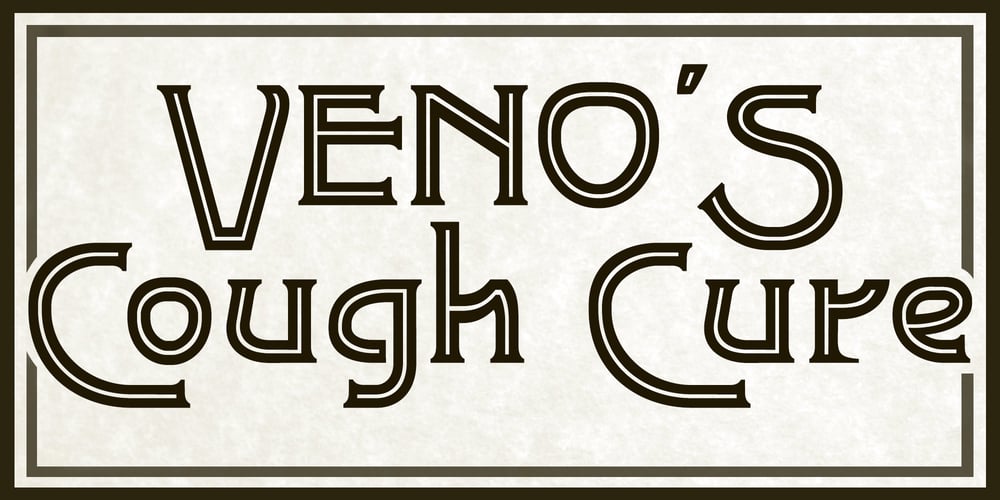
Deco Metro Font Family was designed by Paul James Lloyd and published by Greater Albion Typefounders. Deco Metro contains 2 styles and family package options. Deco Metro is a 1920s and 30s inspired display family, ideal for posters, banners, book covers and other promotional work. Two weights, regular (with an incised centre line) and bold (without the centre line) are offered. The family has an extensive range of features including discretionary ligatures, old-style numerals, Swash Letter and numeral forms, small capitals, Roman numerals and fractions.